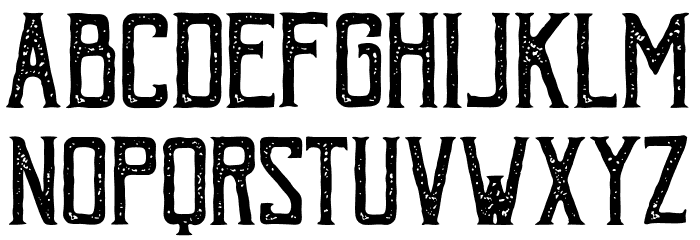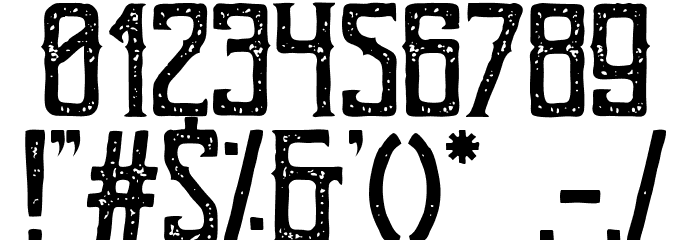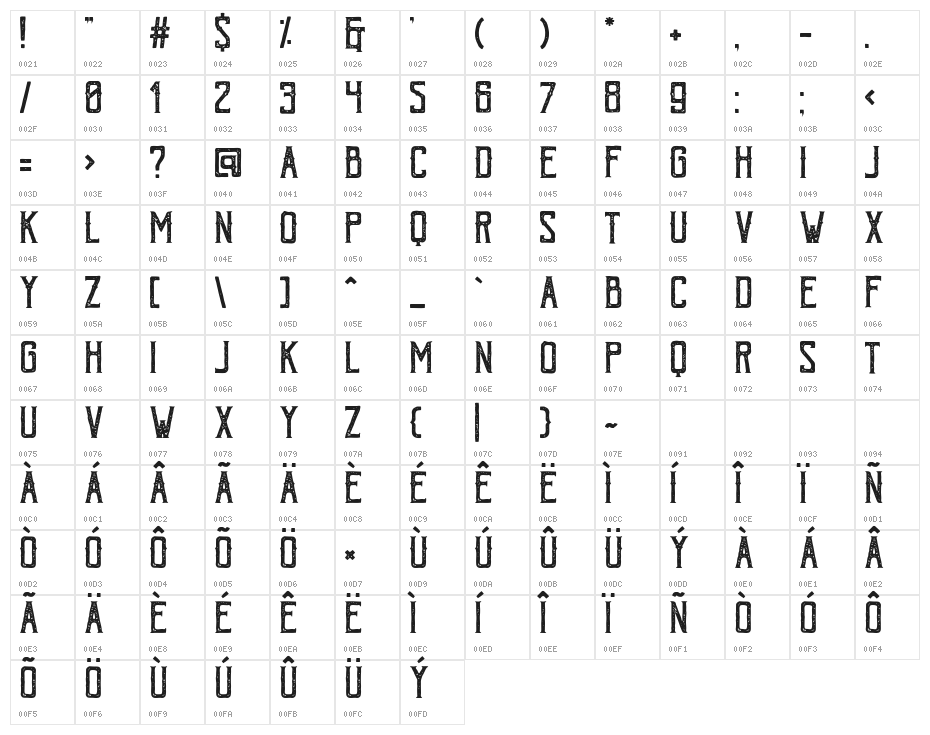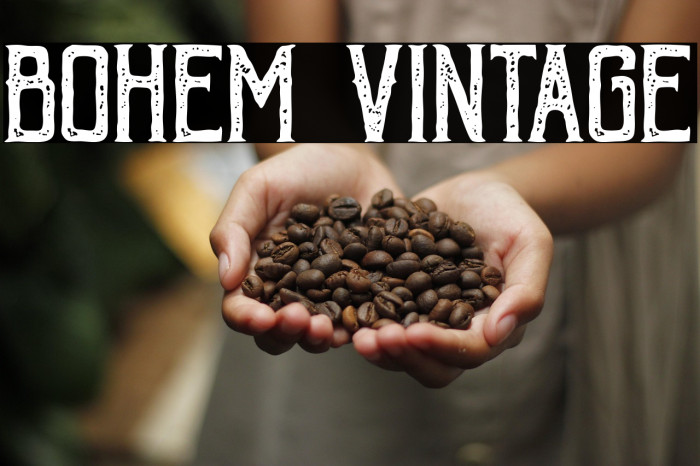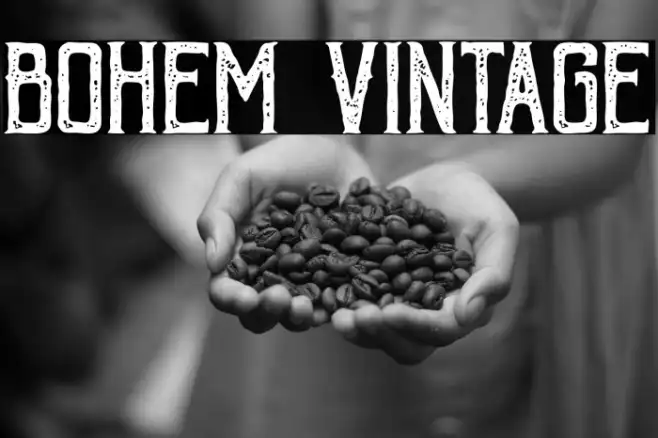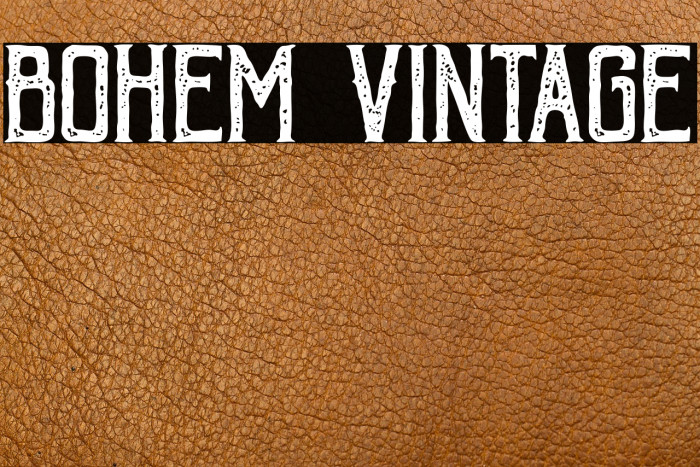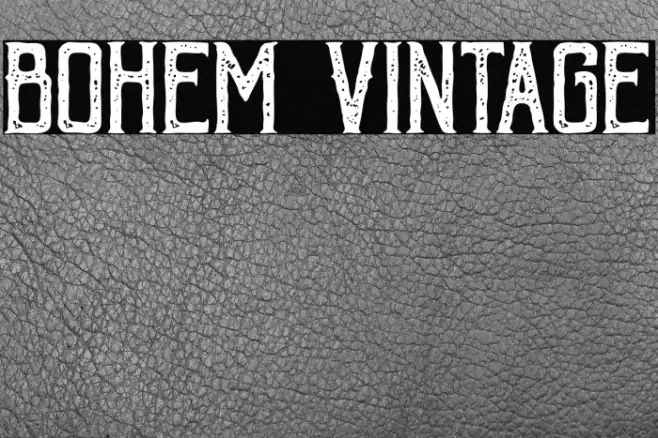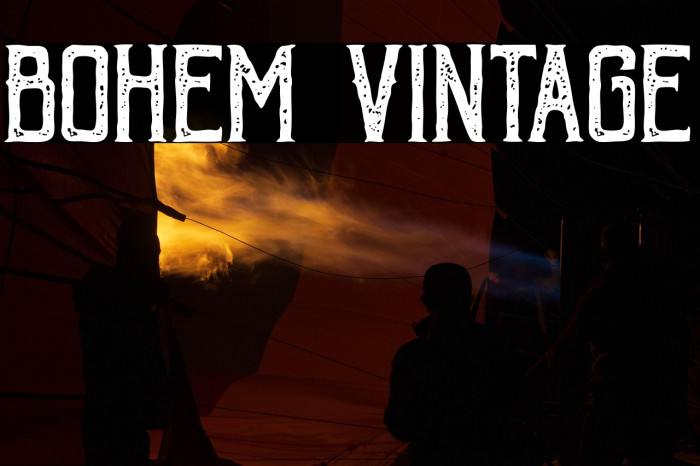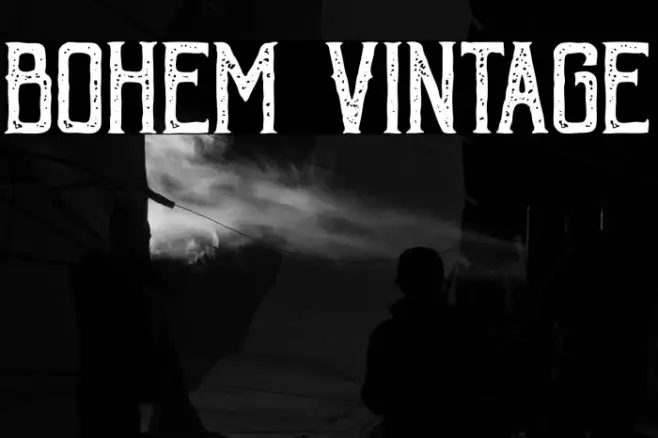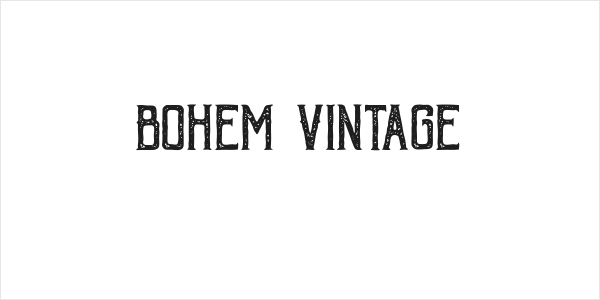
Bohem Vintage Font
This font features a bold and rugged style with a distressed texture that gives it a vintage and worn appearance. The characters are all uppercase with a consistent height, and the numbers follow the same design ethos. The texture within each character adds a unique, handcrafted feel, making it ideal for projects that require a rustic or retro aesthetic. The special characters maintain the same distressed look, ensuring consistency across all text elements. This font is perfect for creating eye-catching headlines, posters, or branding materials that need a touch of nostalgia and character.
A bold, distressed font with a vintage, handcrafted appearance.
- Font: Bohem Vintage
- Proposed Projects: Ideal for vintage-themed posters, branding, logos, and packaging designs.
- Overall Style: Vintage